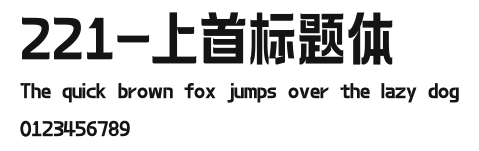
221-上首标题体 Preview
• Font Name: 221-上首标题体
• Full Font Name: 221-上首标题体
• Version: Version 4.00 February 28, 2023
About 221-上首标题体.ttf
221-上首标题体.ttf is a modern, elegant sans-serif font designed for ultimate readability and visual harmony. Perfect for branding, headlines, web design, and print materials.